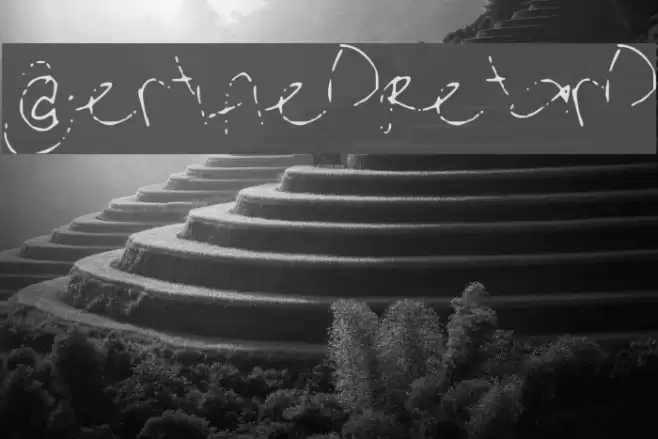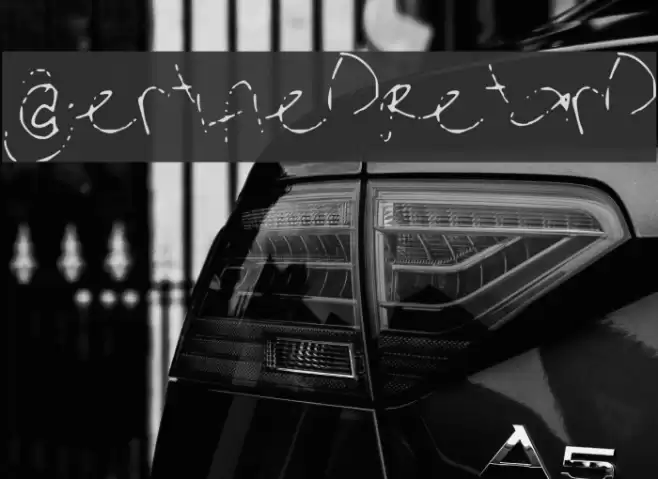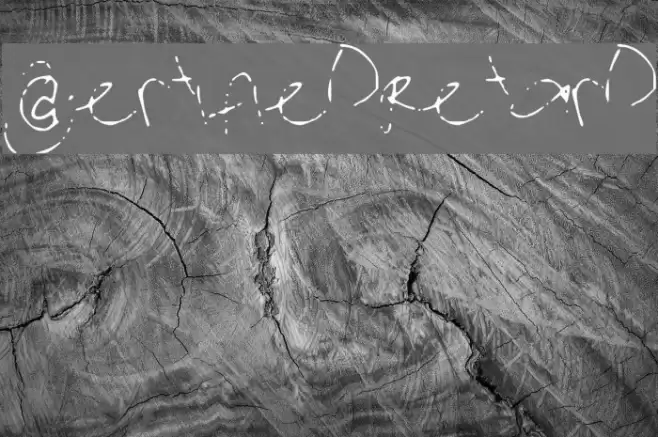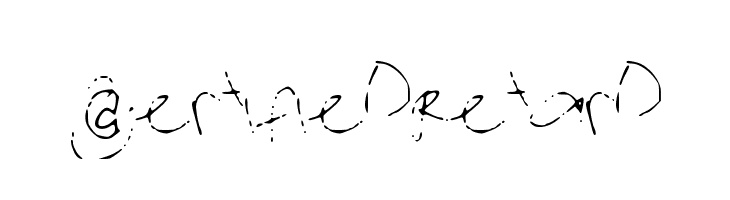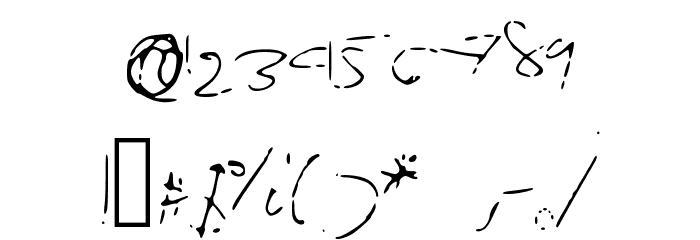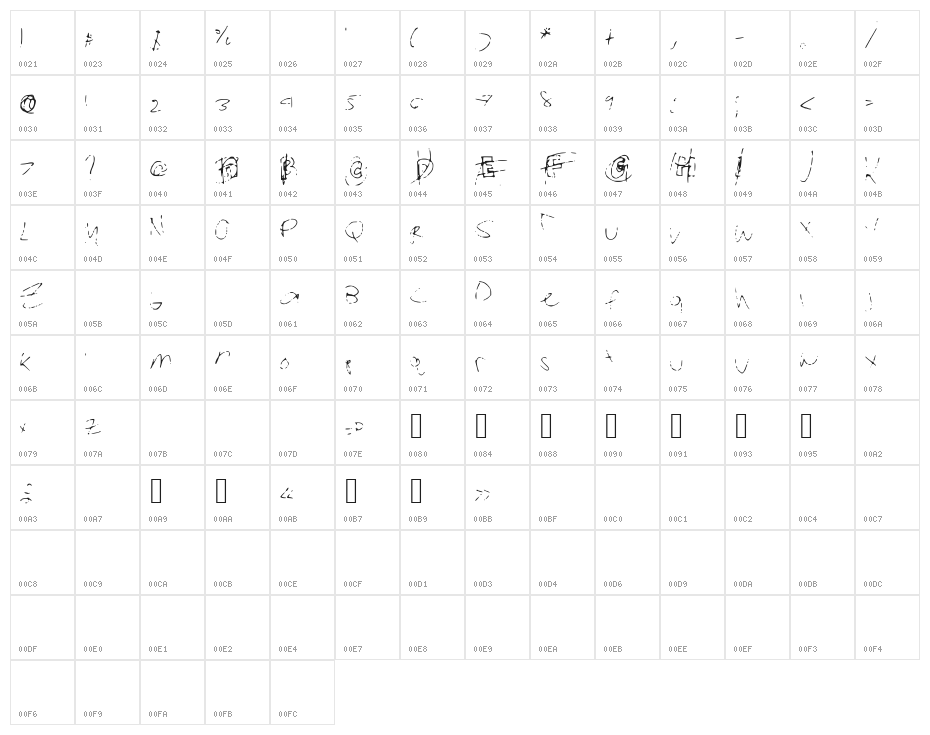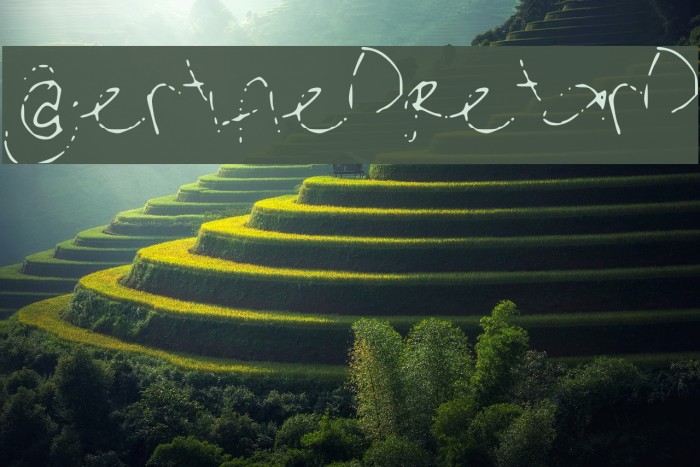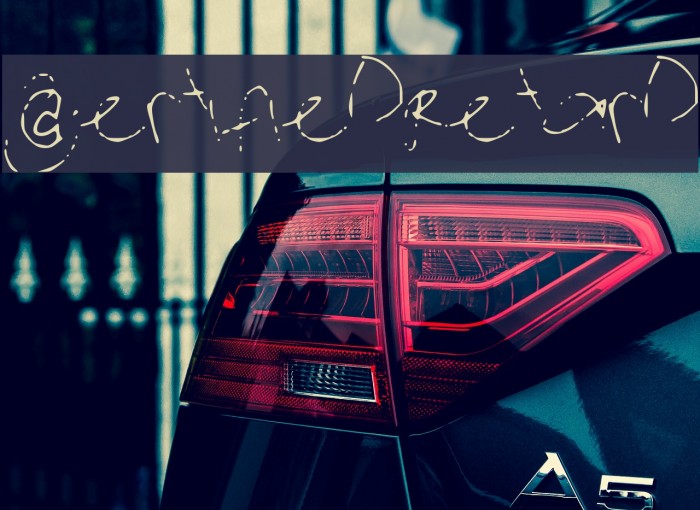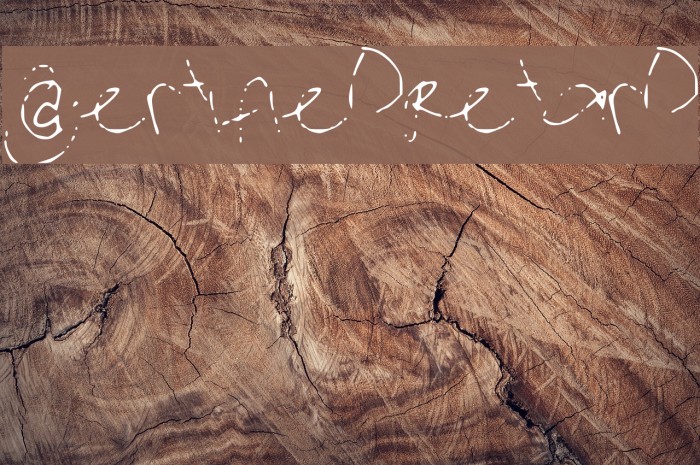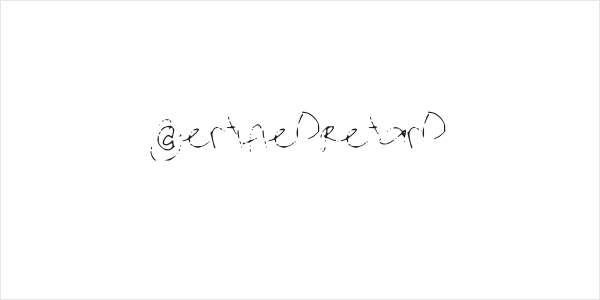
CertifiedRetard Font
CertifiedRetard Description
This font exhibits a highly distressed and chaotic style, characterized by uneven strokes and a hand-drawn appearance. The letters appear as if they have been scribbled quickly, with varying line thickness and irregular spacing. The overall look is raw and unrefined, giving it a unique, artistic flair. The uppercase and lowercase letters maintain a consistent style, though they vary in size and alignment, adding to the font's unpredictable nature. Numbers and special characters follow the same erratic design, making the font suitable for creative and unconventional projects.
A chaotic, hand-drawn font with uneven strokes and irregular spacing from Uncategorized fonts.
- Proposed Projects: Ideal for artistic projects, edgy branding, album covers, or any design requiring a raw, unconventional look.
- Character Spacing: Irregular
- Overall Style: Artistic, Chaotic
- Use Case: Logos, Posters, Artistic Designs